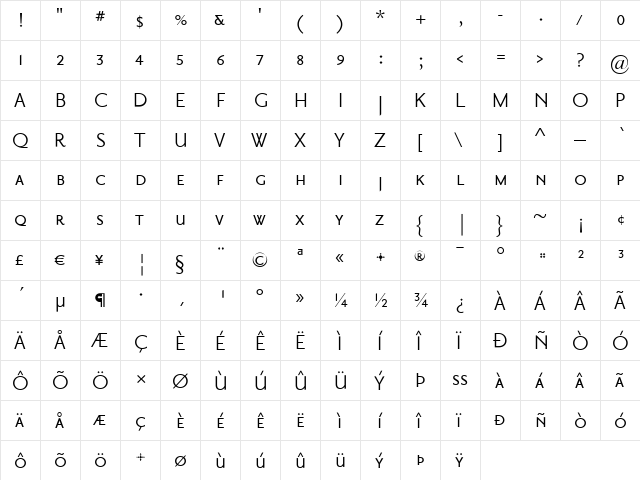
Priori Sans Medium Font Preview
Priori Sans Medium
Priori Sans Medium Font Details
Design Context for Priori Sans Typeface
Priori Sans takes a measured approach to typography — its balanced proportions and neutral character make it a reliable workhorse for both digital and print work.